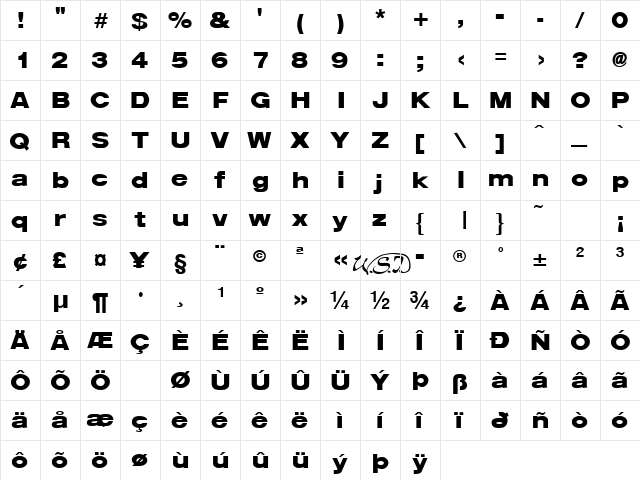
Arena Black Extended Regular
Design Context for Arena Black Extended Typeface
Arena Black Extended offers clean, dependable letterforms without strong stylistic allegiance, making it a practical choice for designers who need flexibility.
Pro Tip: Use Arena Black Extended in both headline and body roles to test its range before committing to a single application.